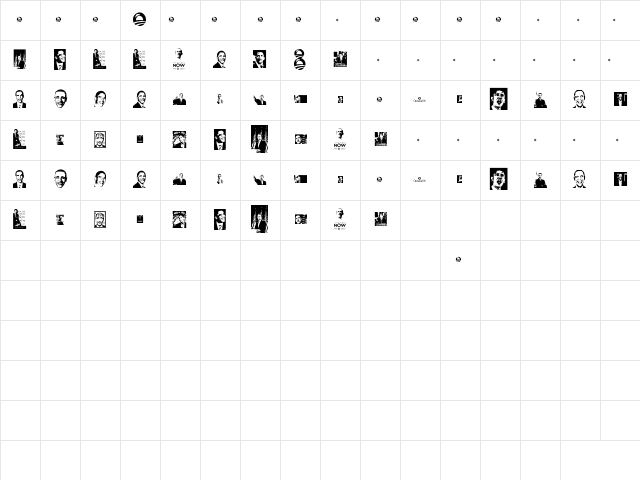
Obamax Regular Free Font
Obamax Regular
Design Context for Obamax
Obamax is a composed and adaptable typeface that performs quietly and consistently across a wide range of design contexts.